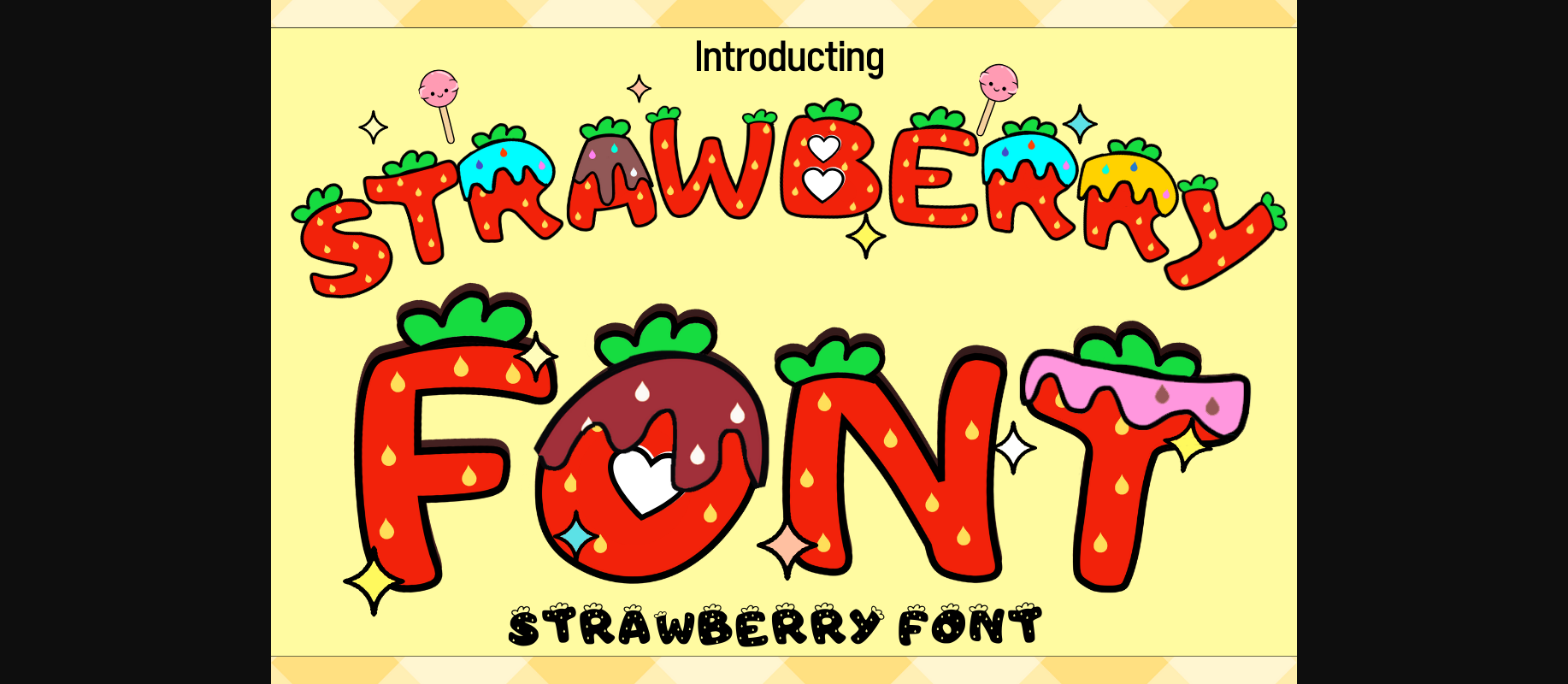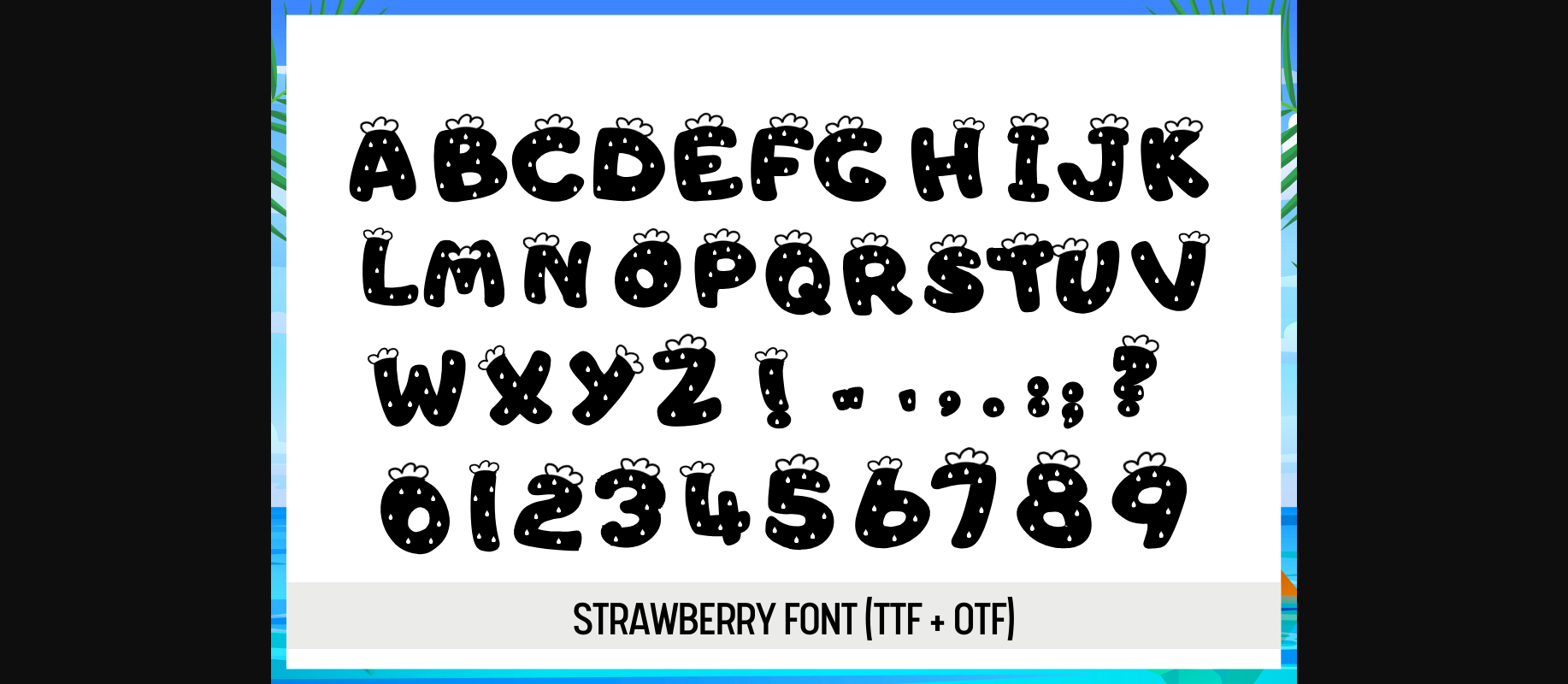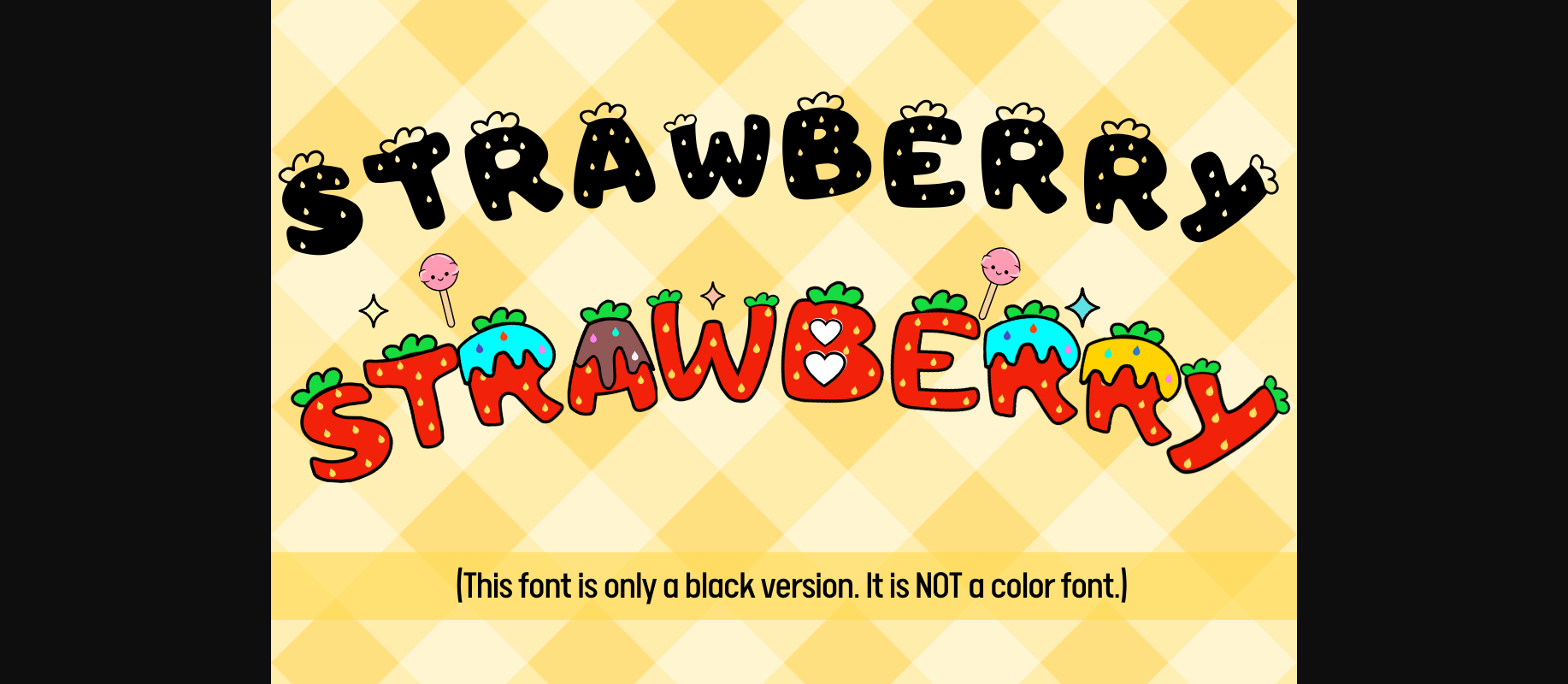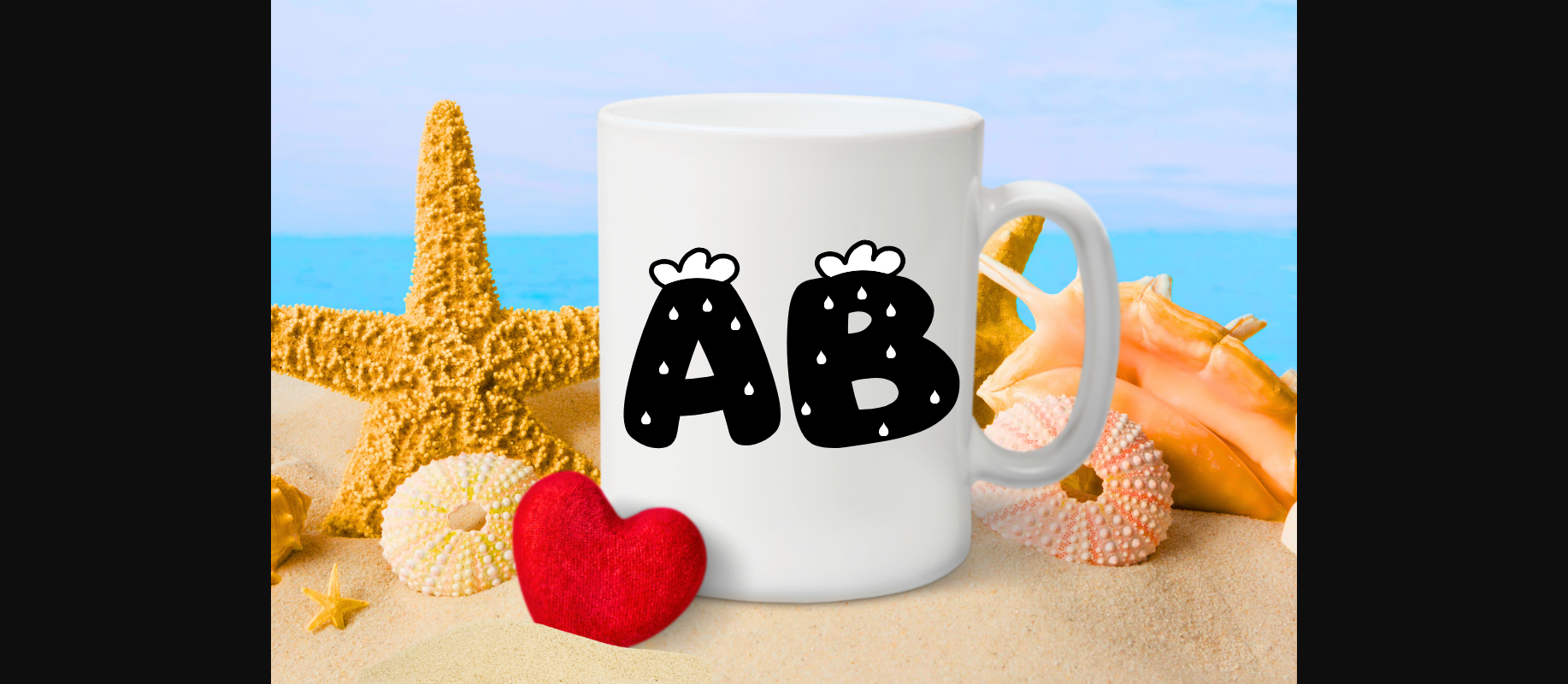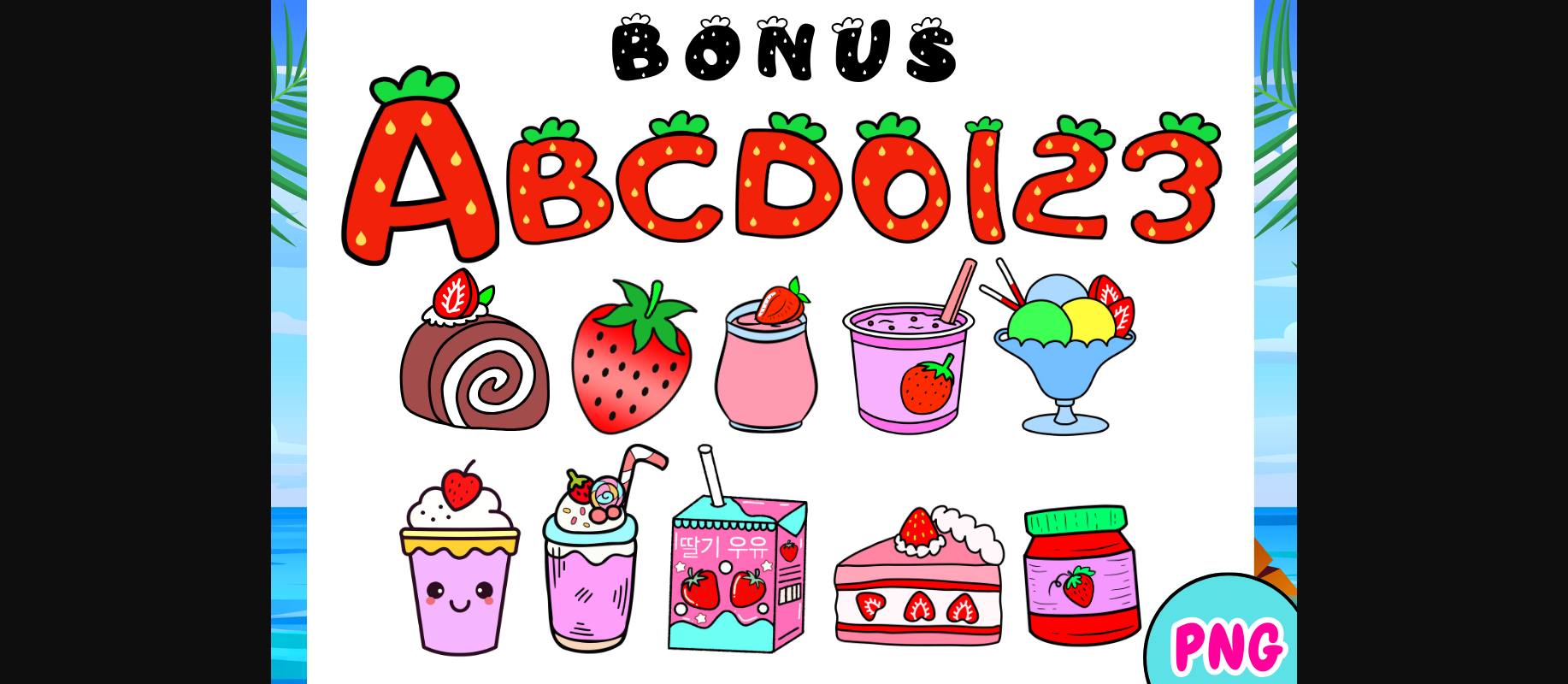
Strawberry Font
About Strawberry Font
Strawberry is a delightful and whimsical decorative font that radiates sweetness and charm. With playful curves and adorable strawberry motifs, it adds a fun and lighthearted touch to any design. Perfect for children’s books, greeting cards, and summer-themed projects, Strawberry brings a sense of joy and delight.